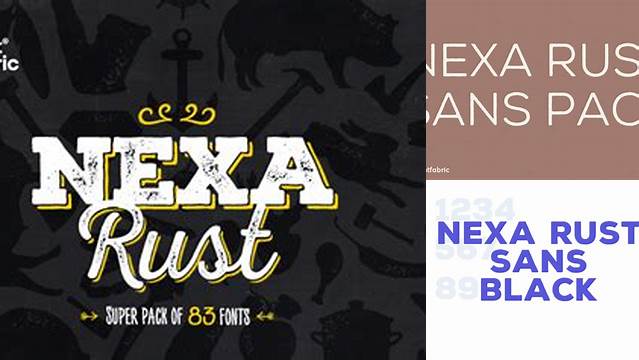
Nexa Rust Sans Font: Free Download & Creative Uses
Hey guys! Ever stumble upon a font that just screams personality? Well, let me introduce you to the Nexa Rust Sans Font! It's a real gem, and the best part? You can get a nexa rust sans font free download! This article is your ultimate guide to everything Nexa Rust – where to snag it, what makes it so special, and how to use it to spice up your projects. Get ready to dive in!
H2: Unveiling the Unique Characteristics of Nexa Rust
What makes Nexa Rust Sans Font so special? Well, its versatility and character! It’s not just one font; it’s a whole family! This font family is known for its wide range of styles, from clean and modern sans-serifs to textured and distressed versions. It's like having a whole toolbox of fonts in one package. This gives you a lot of freedom to play with different looks and feel for your designs. The different weights and styles of Nexa Rust Sans offer a fantastic level of detail and character that you just don't always find. Some versions have a rough, hand-drawn look, while others are sleek and polished. This level of variety makes it suitable for a wide range of projects.
Its friendly and approachable appearance is another key feature. The design is clean and easy to read, making it ideal for both headings and body text. The designers have paid close attention to detail, creating a font that's both stylish and functional. You'll notice the subtle nuances in each letter, giving it a unique personality. The font’s robust character makes it stand out without being overbearing. It’s perfect for capturing attention. Nexa Rust often includes multiple weights, from light and thin to bold and heavy, meaning it can be adapted to various design needs. This versatility means you can use it for everything from website headers to print designs. And don't forget the added extras; some versions include special characters, icons, and even ornaments to add a little extra flair to your work. Overall, Nexa Rust Sans Font combines a modern aesthetic with a touch of vintage charm, offering a lot of creative possibilities.
H3: Exploring the Different Styles and Weights of Nexa Rust
Let’s dive a bit deeper into the awesome styles and weights of the Nexa Rust Sans Font! This is where the magic really happens. One of the best things about Nexa Rust is its massive family of styles. You'll find everything from the classic sans-serif versions to more adventurous and textured options. There’s something for everyone! You can get clean, geometric versions that are perfect for a modern, minimalist aesthetic. Or, if you want something with a bit more edge, there are distressed and rough-edged styles that give a vintage and handcrafted feel to any design.
The font also offers a great range of weights, from super-light to extra-bold. This means that you can easily use it to create a visual hierarchy within your designs. Using a lighter weight for body text and a bold weight for headings makes your content super easy to read and helps guide the reader's eye. The different weights also allow you to create a dynamic look that really grabs attention. For example, a website header in a bold weight can really make a statement, while the body text remains easy to read. In addition to the standard weights, Nexa Rust offers various options to elevate the style even further. The "Rust" part of its name comes from the distressed and textured options, which look like they've been worn down over time. These styles are fantastic for creating a vintage feel, perfect for branding or designs that require a touch of history. Combining these options with the different weights lets you create a ton of looks, all based on the same font! The weights, along with the different styles, make Nexa Rust perfect for all kinds of creative projects.
H3: Nexa Rust vs. Other Sans-Serif Fonts: What Sets It Apart?
So, what makes the Nexa Rust Sans Font stand out from the crowd of other sans-serif fonts? Well, it's a combination of several factors. First off, it’s the sheer breadth of styles and weights available. Many sans-serif fonts offer a limited range, but Nexa Rust gives you a huge variety to choose from, perfect for different design needs. You can easily create multiple looks within a single project. The textured and distressed versions of Nexa Rust are another game-changer. These aren't just your standard clean sans-serif; they have character and personality. This allows you to create designs that feel authentic and visually interesting. While some sans-serif fonts feel cold and impersonal, Nexa Rust has a warm, inviting vibe, thanks to its rounded edges and overall friendly design. This makes it perfect for a wide range of applications, from branding to web design.
Compared to something like Helvetica, Nexa Rust offers more personality and flexibility. Helvetica is a classic, but it can sometimes feel a bit generic. Nexa Rust has a more modern feel, and it's much better for creating a unique brand identity. Other fonts, like Open Sans or Lato, are great choices for readability, but they may lack the visual interest that Nexa Rust brings to the table. Nexa Rust strikes a good balance between readability and style, making it great for various design needs. Its diverse range of weights and styles means you can create a consistent and visually appealing design. Nexa Rust is more than just a font; it’s a design tool that lets you create some amazing stuff.
H2: Creative Uses and Applications of Nexa Rust Sans Font